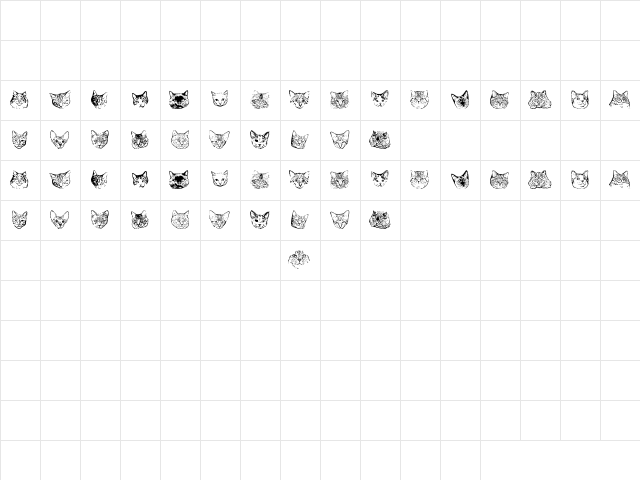
KittyPrint AOE Regular Free Font
KittyPrint AOE Regular
Complete KittyPrint AOE Regular glyph index. Displaying only characters natively supported by KittyPrint AOE Regular font.
Design Context for KittyPrint AOE
KittyPrint AOE is a composed and adaptable typeface that performs quietly and consistently across a wide range of design contexts.